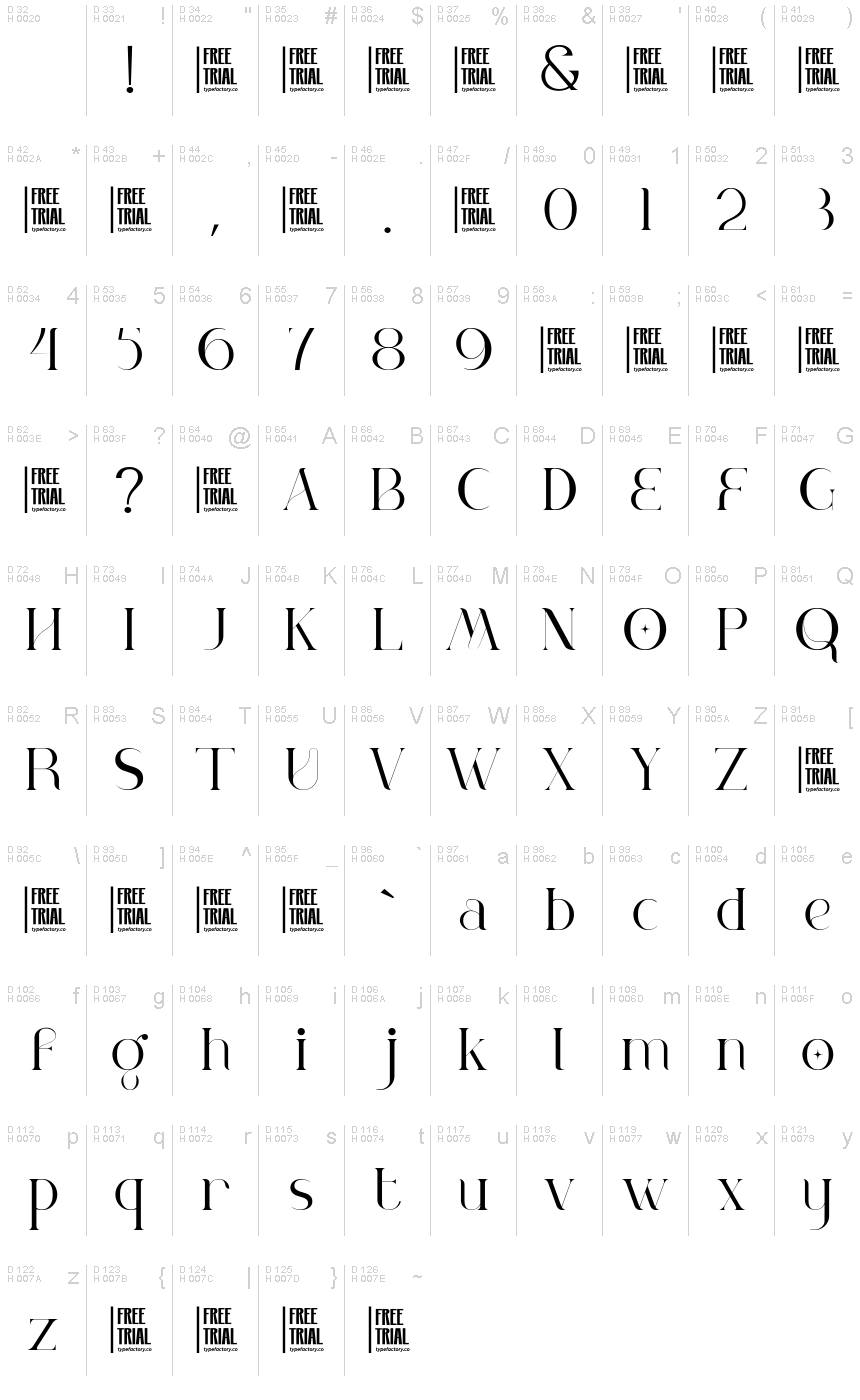
Mioge Free Trial
Mioge font by Typefactoryco is a free modern display font that elegantly brings refined details for an exquisite appearance. It features high contrast elements with sophisticated decorative details making it well suitable for branding, and more artistic typography. Versatile in the projects you can pair it with, Mioge shines best as a headline or subheadline font.